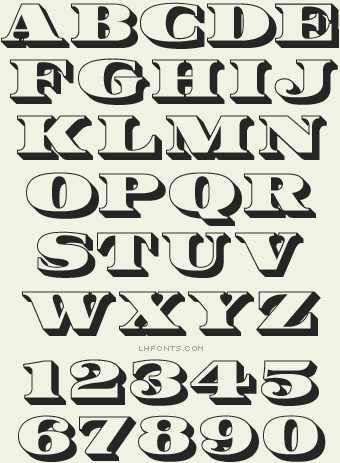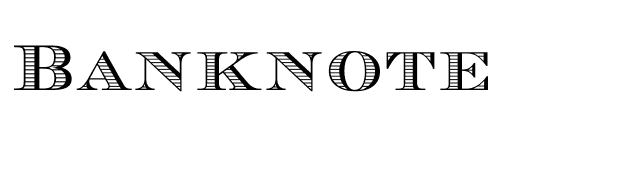
Banknote with conservatory, saratoga panels 3 & burbank.
Banknote roman font generator. It is blocky like the prominent serif above it, but also a good deal wider and heavier. If you look closely at that banknote, you can see that it also features small supporting text rendered in a squarish sans. Bank note 1.1 by john studden.
If you want to create professional printout, you should consider a commercial font. The font takes inspiration from german kanzlei (chancery) typefaces and the english calligraphers john ayres and george bickham. Original uses for this typeface included stock certificates and bills.
Bank of england is loosely based on the blackletter lettering from series f english twenty pound banknotes introduced in 2007. Letterhead fonts / lhf bank note / quality typefaces. Which banknote is most commonly counterfeited.
Nickel is a stocky engraver’s alphabet based on the inscription of a 1918 chinese banknote. Available in upper/lowercase, numerals and basic punctuations. Fonts bank note in 3d category.
The text generator section features simple tools that let you create graphics with fonts of different styles as well as various text effects; A tremendous amount of time, energy, love, and effort went into compiling and designing the 50 font pairings below. Which banknotes are part of es2.
If you recognize the font from the samples posted here don't be shy and help a fellow designer. Great auto farm by jack1214060#5890 & ifergggg#0328 join their discord! Download more than 10,000 free fonts hassle free, desktop and mobile optimized, around for more than 20 years.
Black bold book caps condensed extended heavy italic light medium normal oblique plain regular roman script shadow ultra; Thousands of designers (famous or not) use the image font detection system to find a font or similar free fonts from an image. The fonts in use section features posts about fonts used in logos, films, tv shows, video games, books and more;